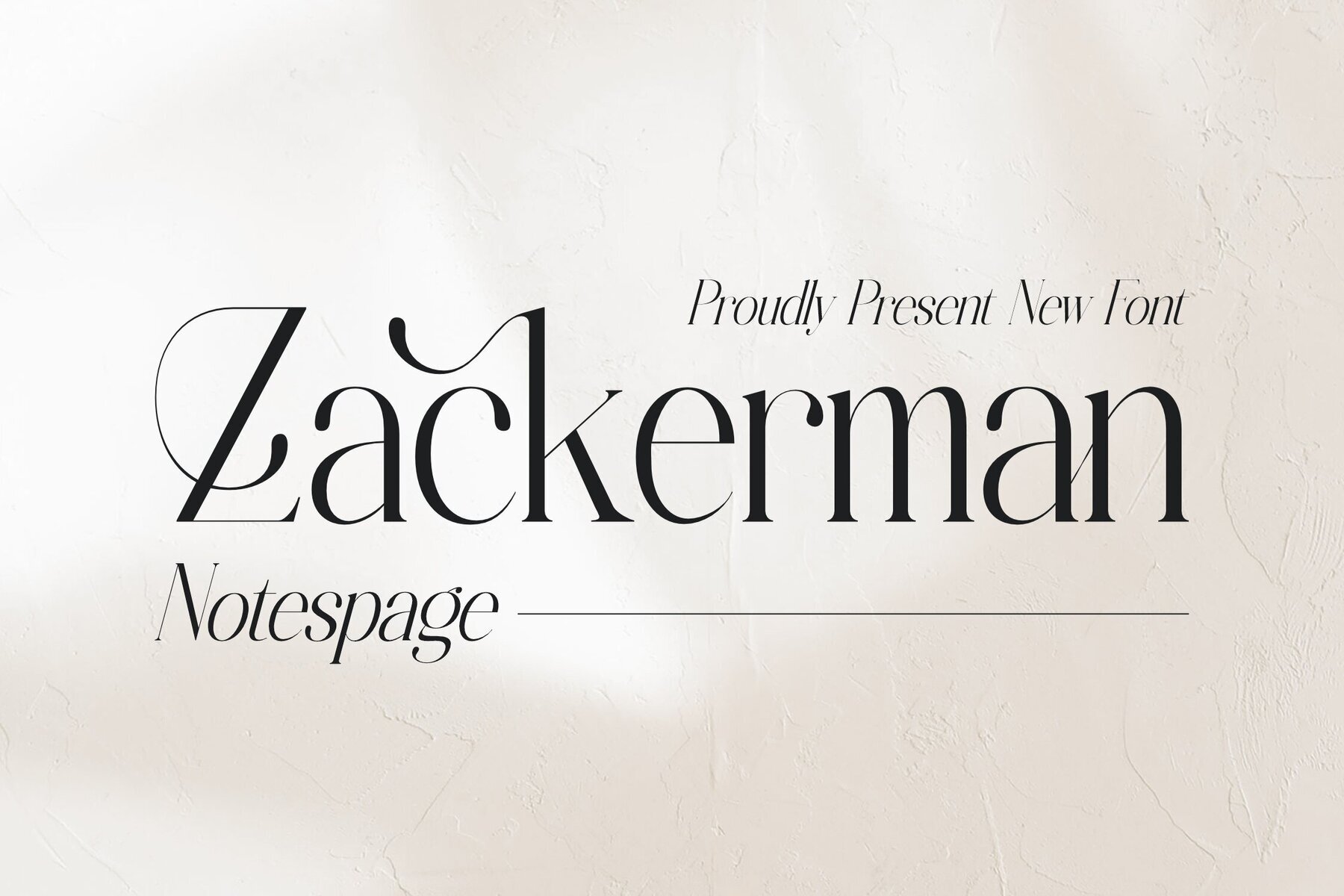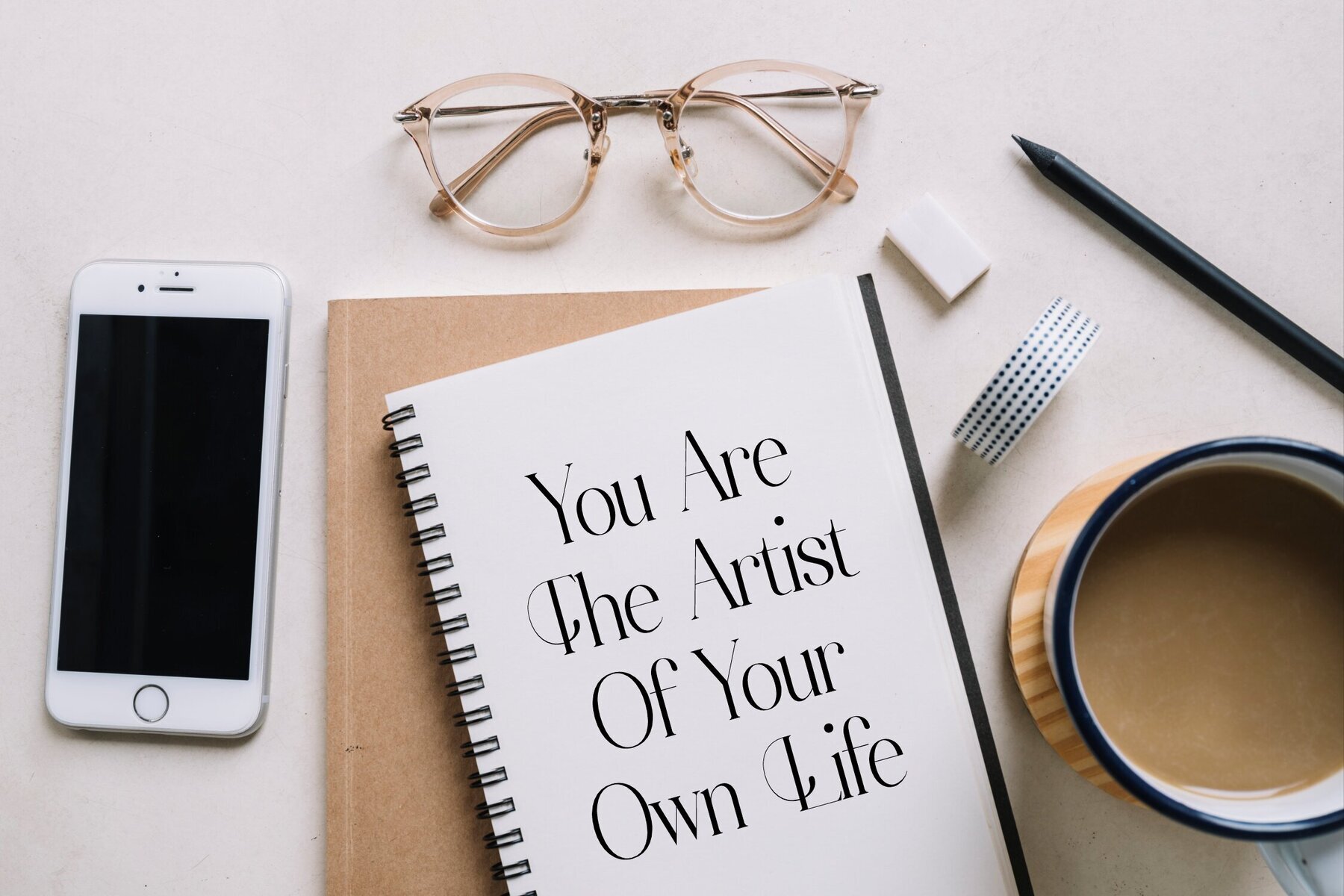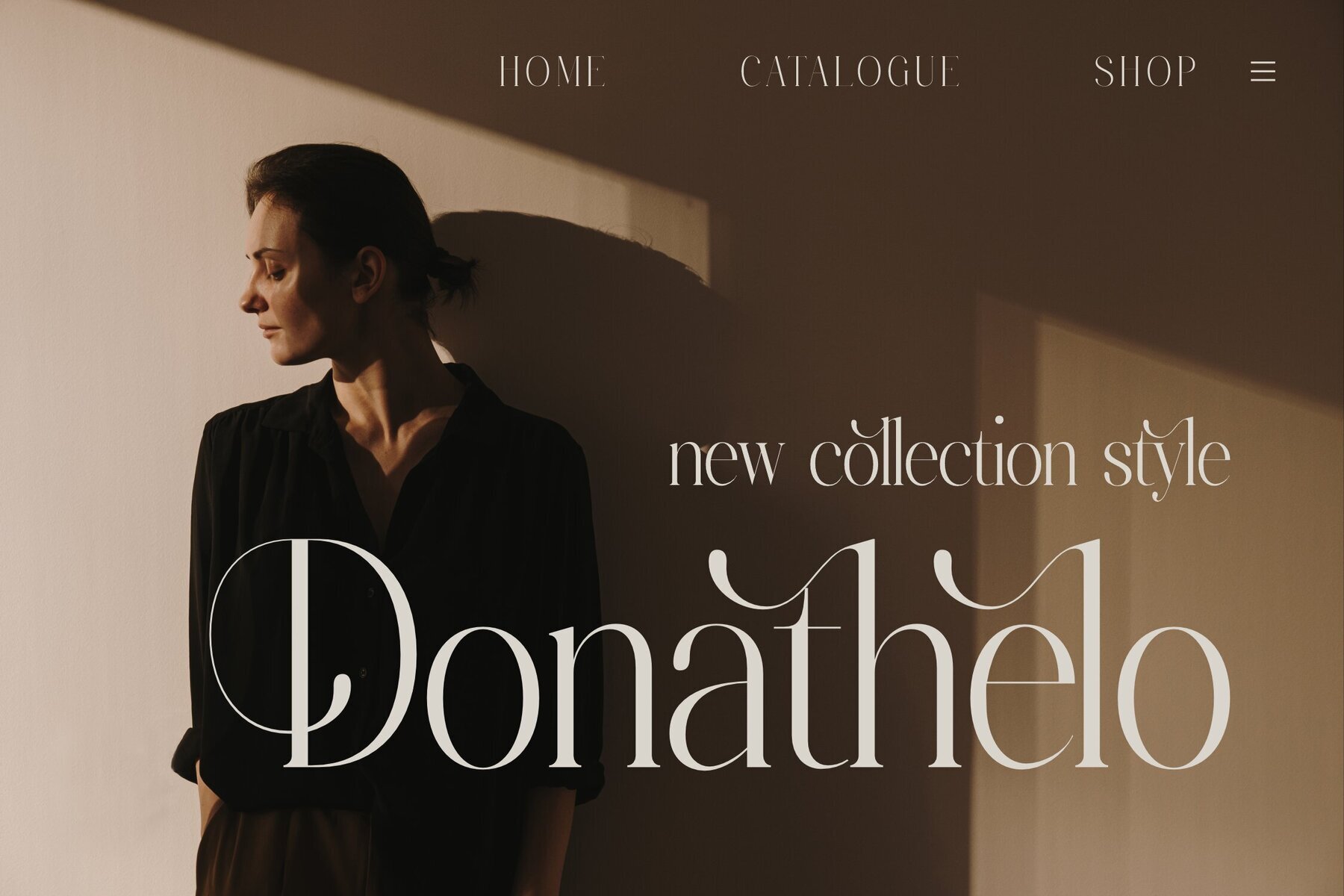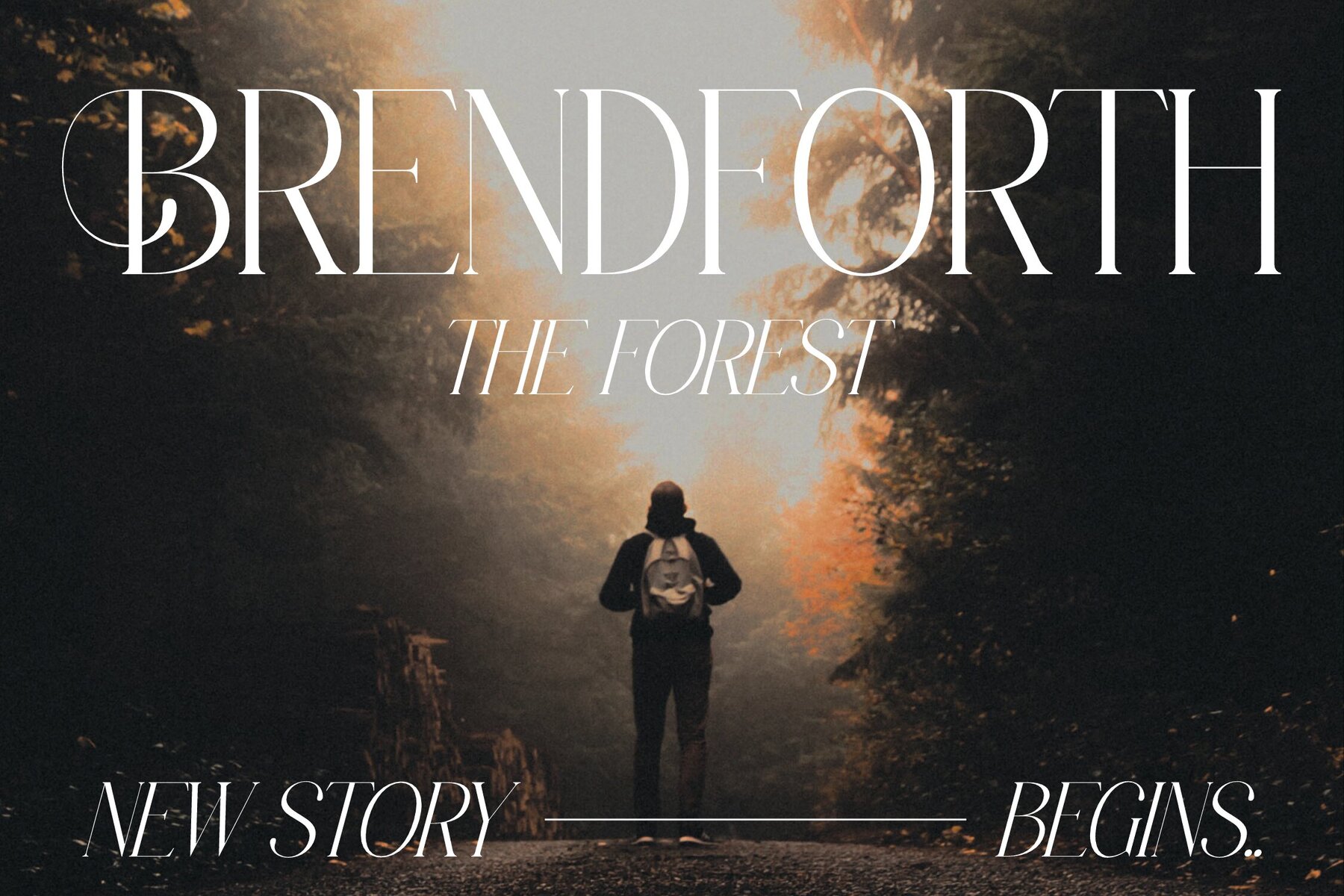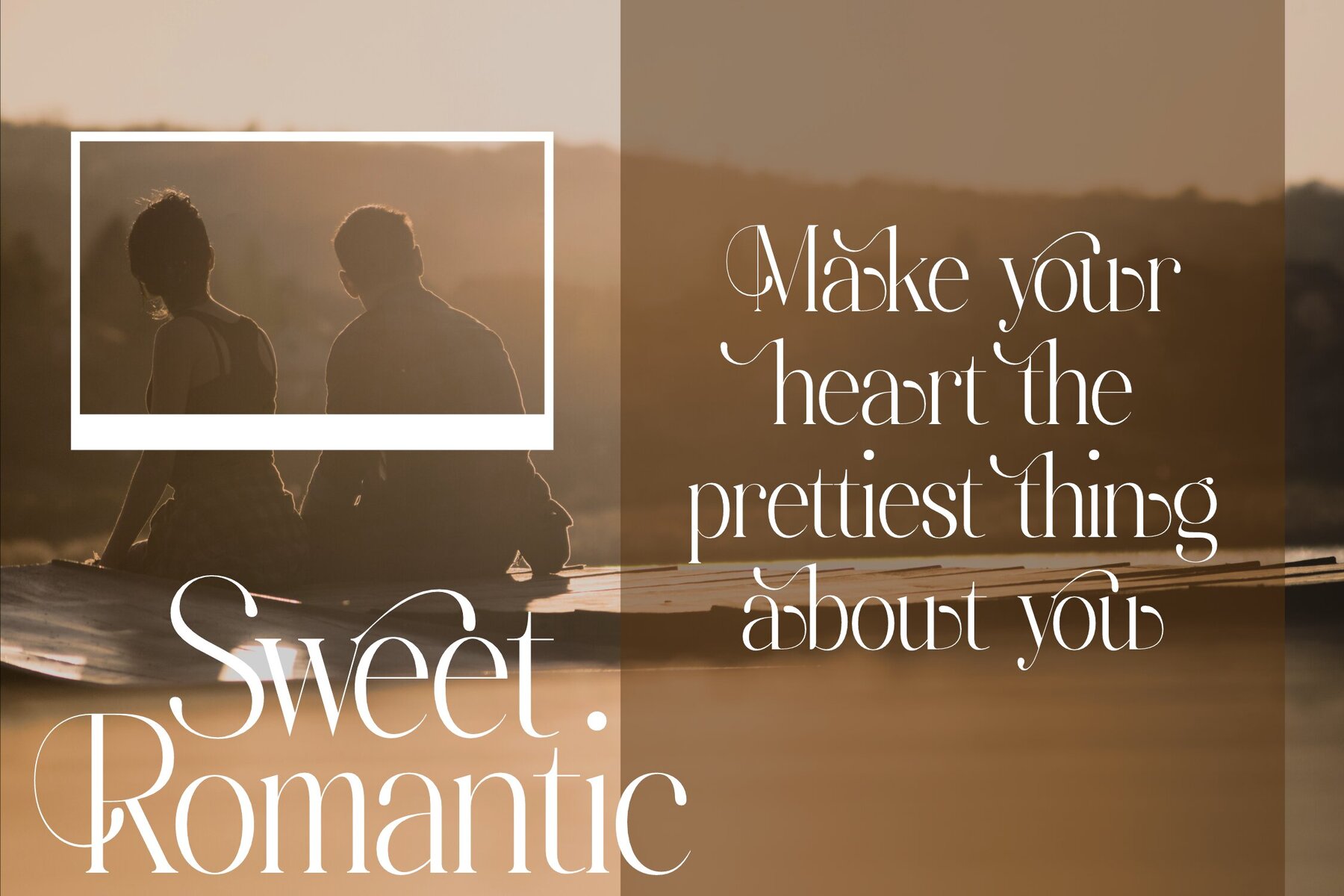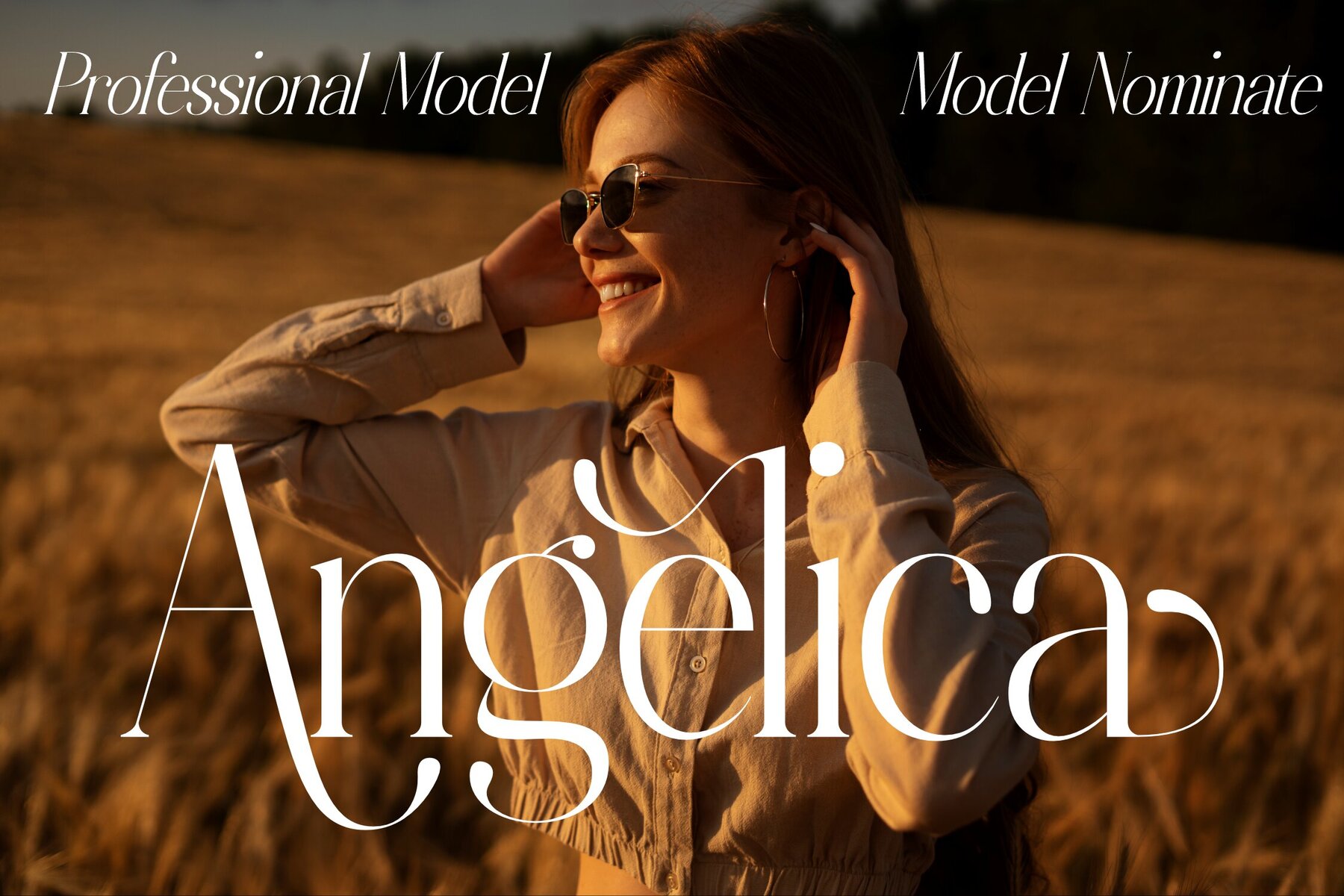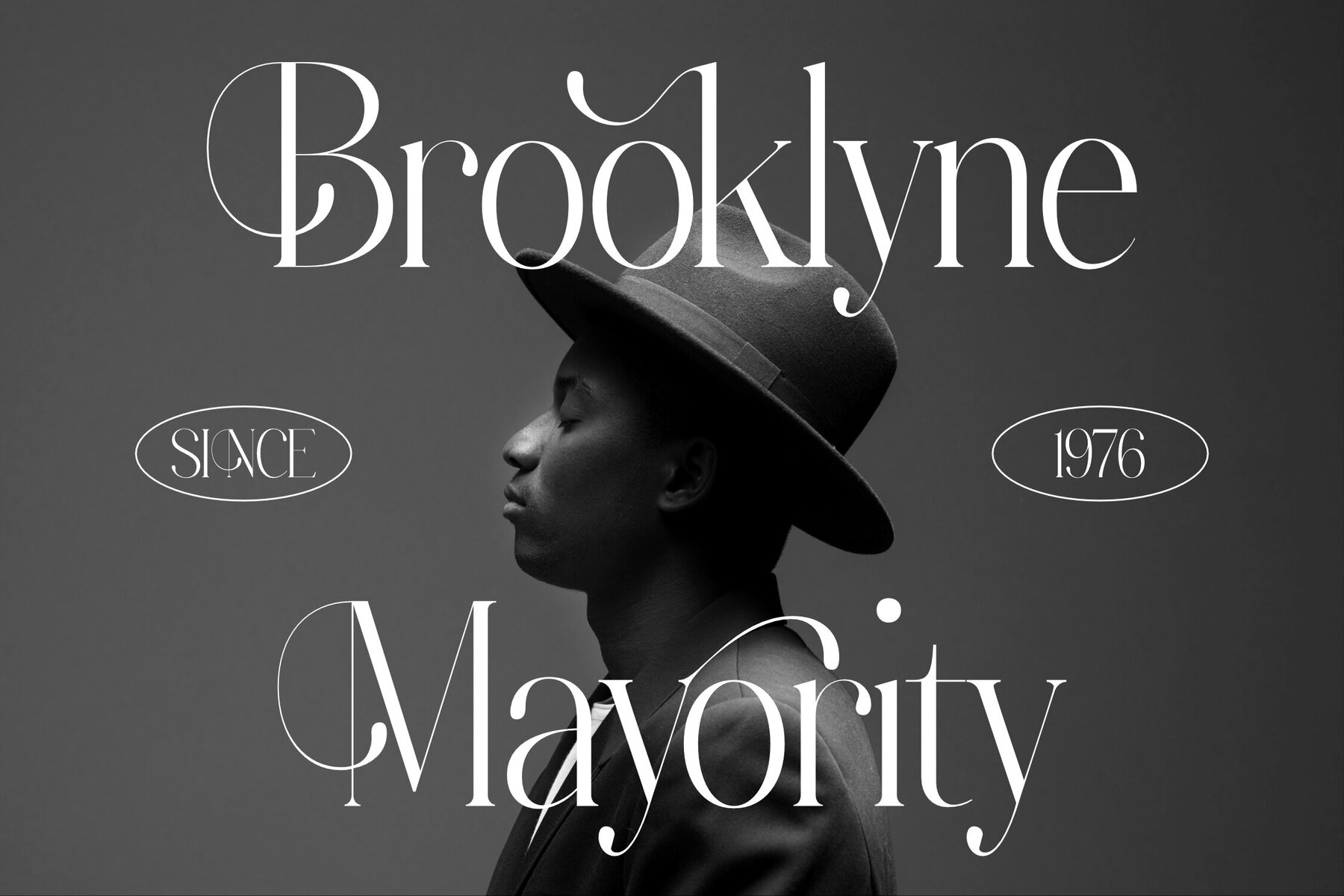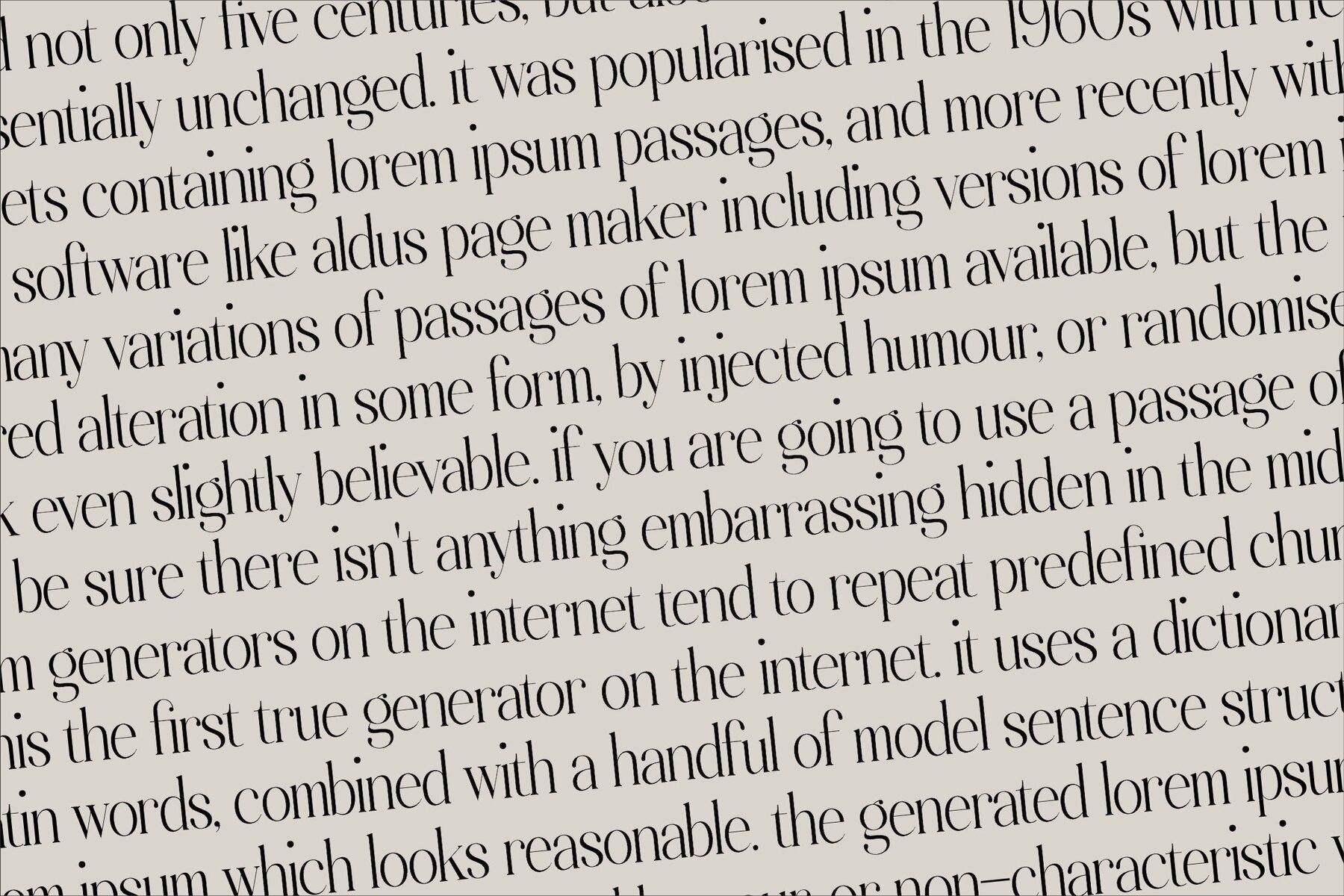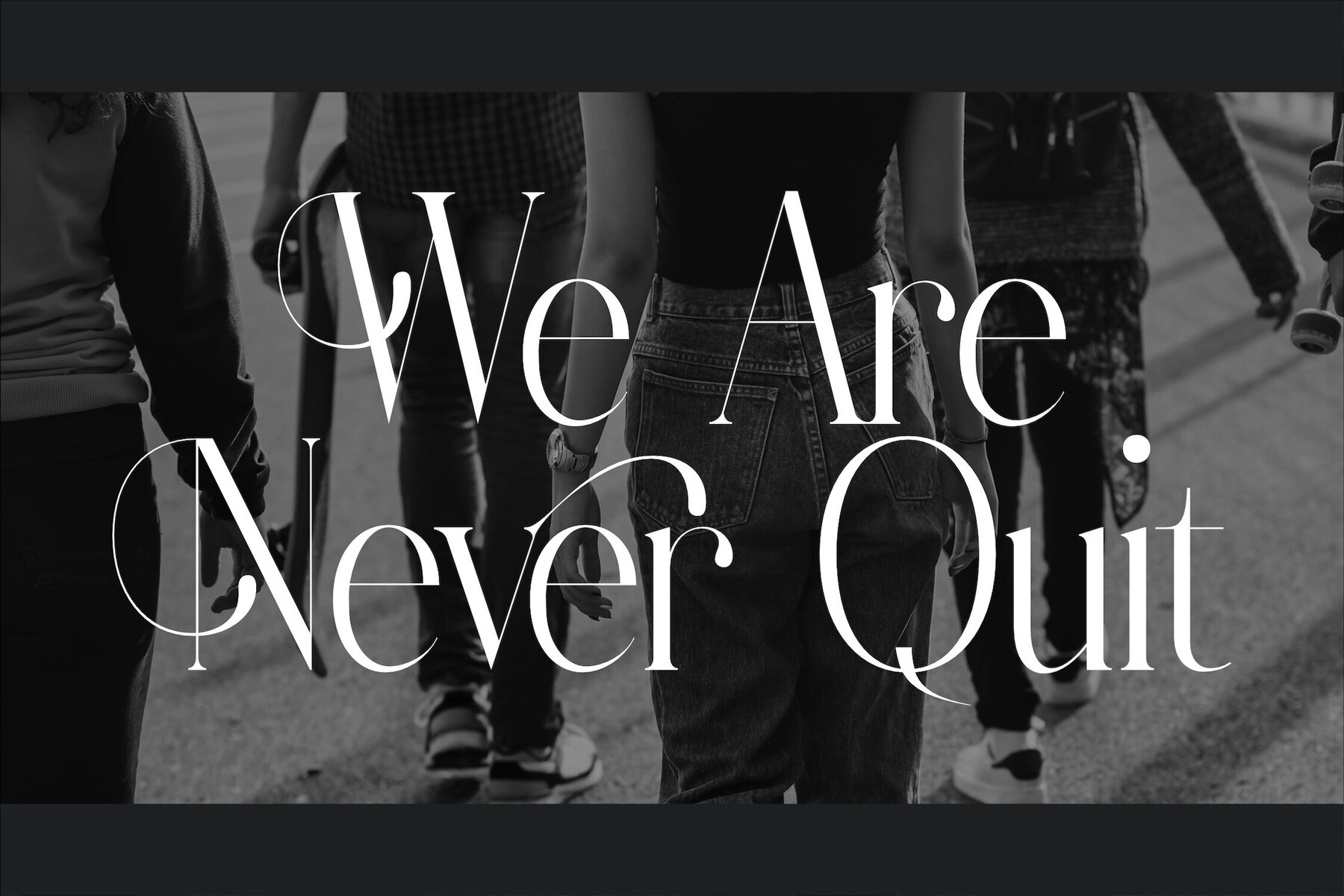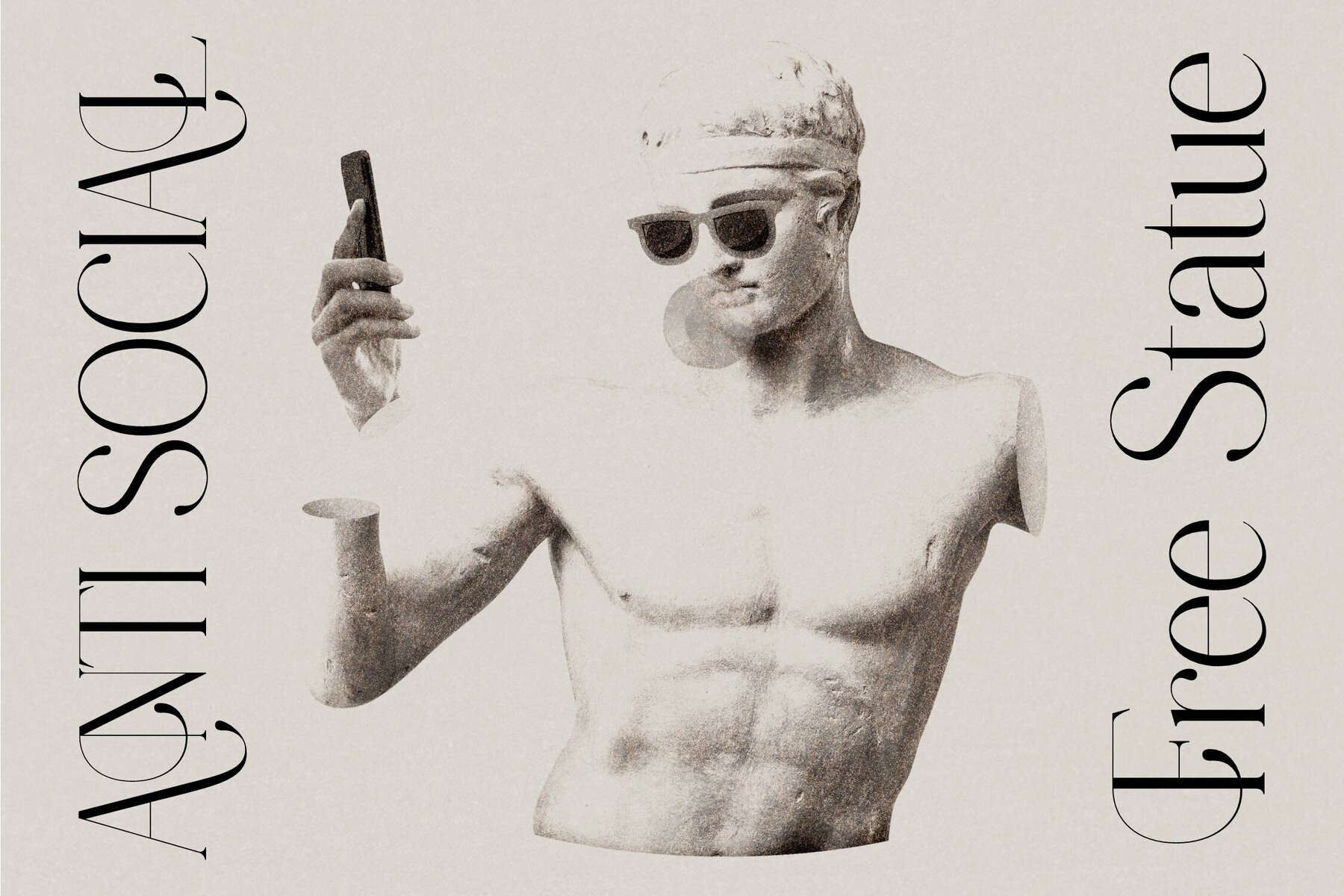
Zackerman Font
Introducing Zackerman, a sophisticated serif font by Storytype Studio that masterfully blends modern and classic styles. This unique typeface offers a refined and luxurious touch, perfect for elevating your design projects. Whether you're crafting an elegant logo, designing a cinematic book or movie title, or working on fashion branding, Zackerman effortlessly enhances each piece with its distinctive charm.Zackerman Typeface